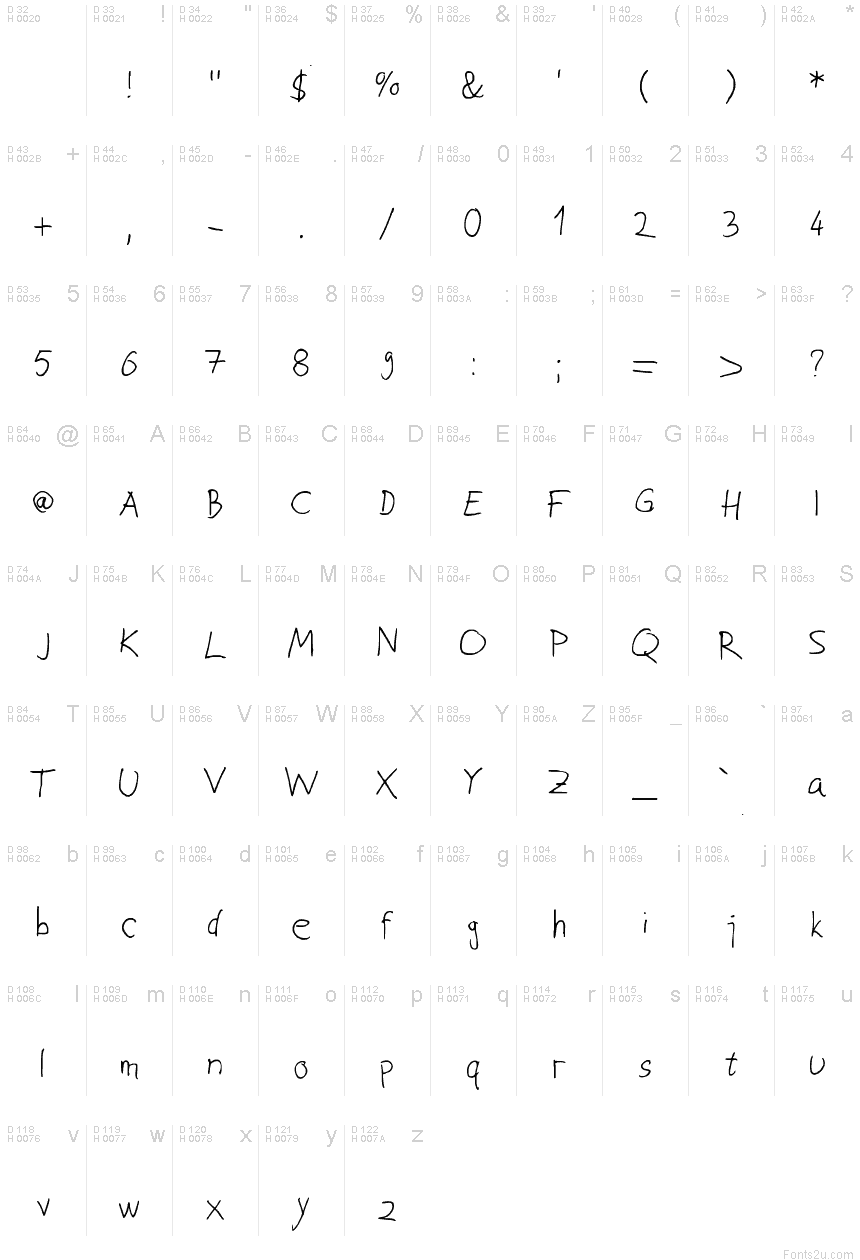
Joksovi Papci is a free handwritten font with tall, loosely drawn letters and a wiry, unpolished line. Its changing stroke widths and uneven forms recall quick marker lettering rather than careful penmanship. The open shapes keep it airy.
A neighborhood cafe or small event could use it for menus, posters, and informal signage with a personally made look. The offbeat forms also suit comedy graphics and independent music artwork rooted in everyday humor.